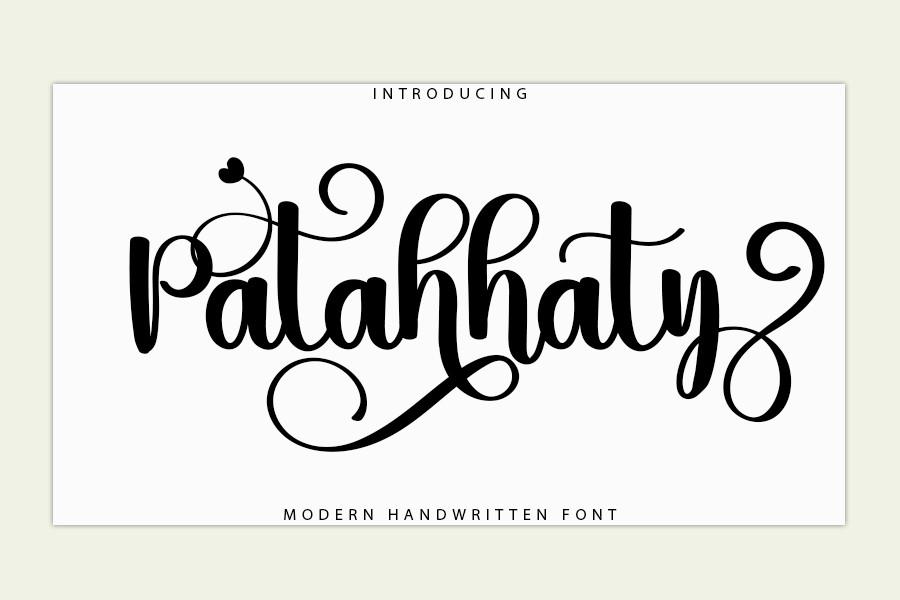
Patahhaty Font Description
Patahhaty is an enchanting handwritten font. This versatile typeface has a wide spectrum of applications ranging from greeting cards to headlines and is guaranteed to add a romantic feel to your next project. Patahhaty is PUA encoded which means you can access all glyphs and swashes with ease!